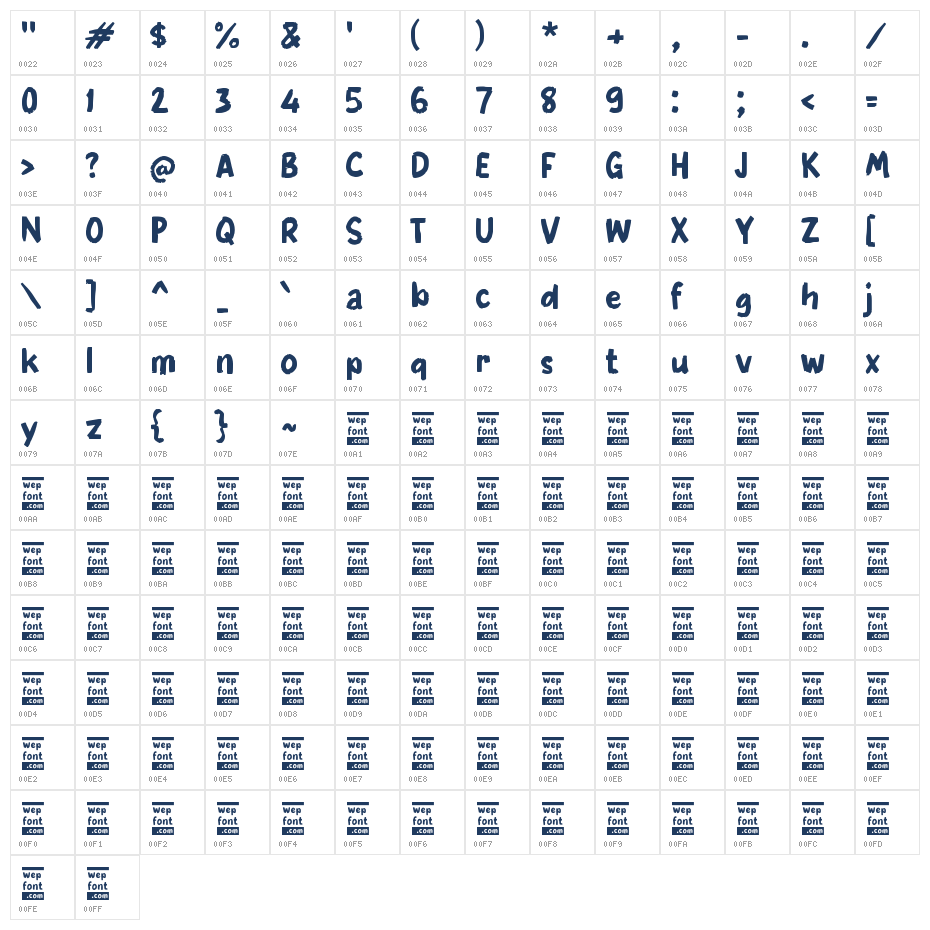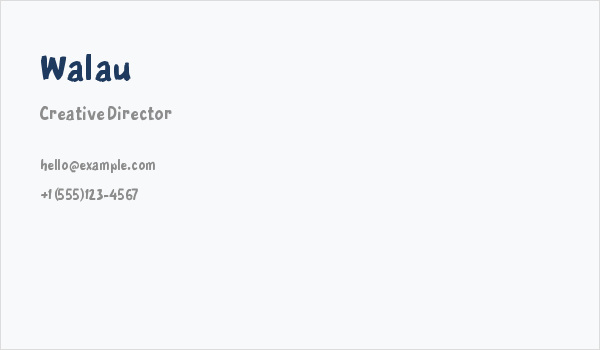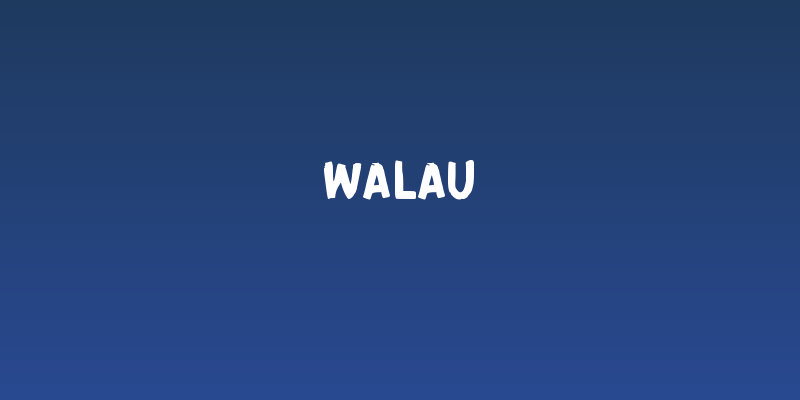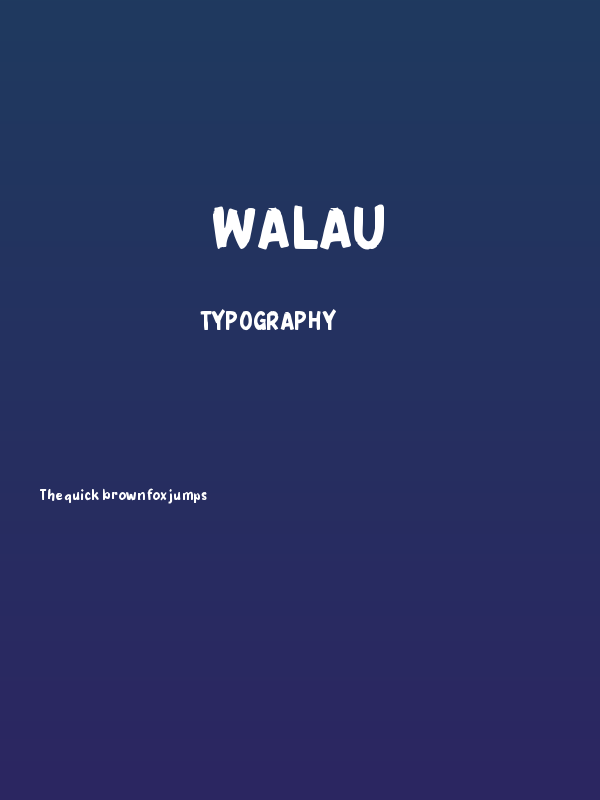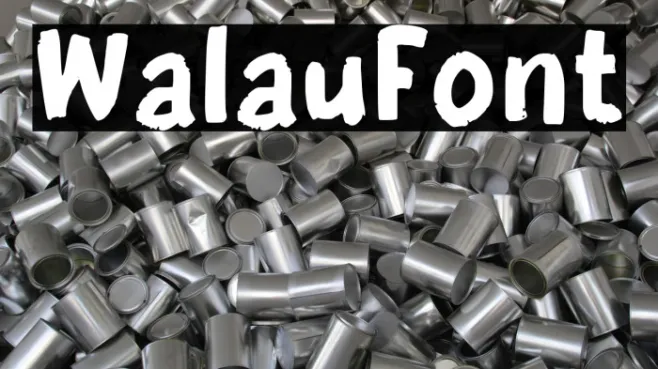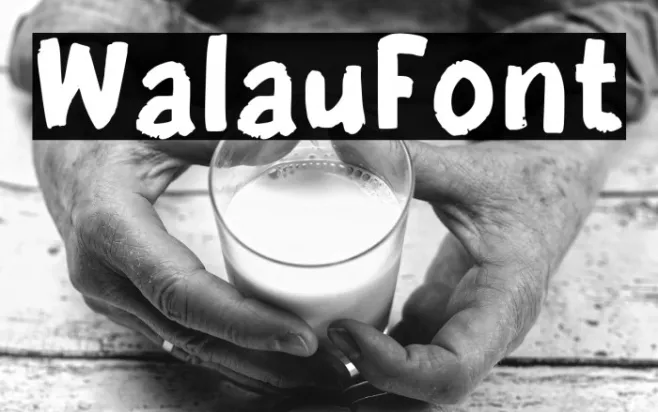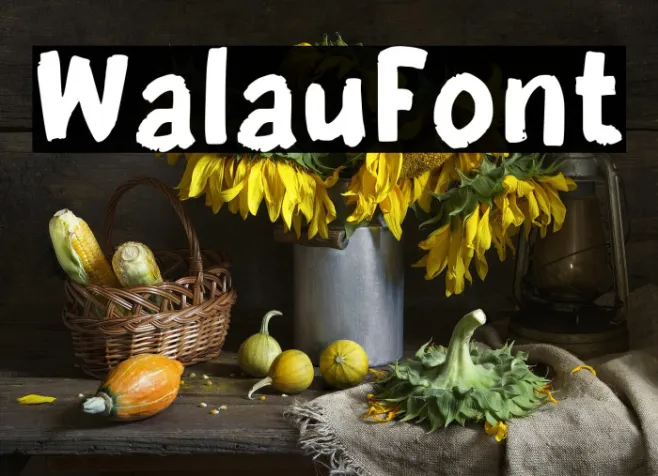
Walau Font
Walau Description
A bold, playful, handwritten style font with a casual and informal appearance, featuring irregular strokes and a slightly rough texture.
| Use Case | Headlines, Posters, Children's materials, Informal branding |